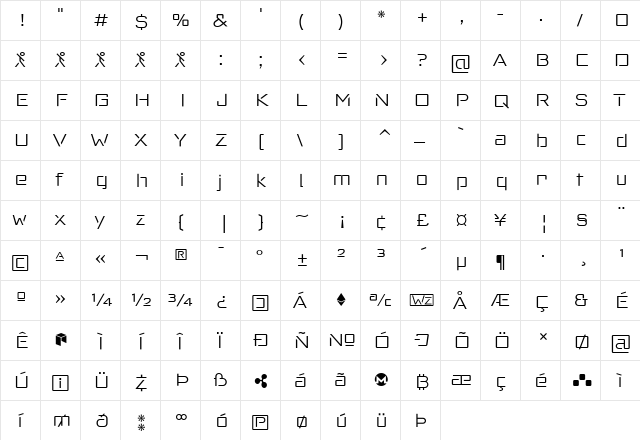
Red Thinker Light Regular
| Foundry | deFharo |
| Designer | Fernando Haro |
Design Context for Red Thinker Light Typeface
Red Thinker Light takes a measured approach to typography — its balanced proportions and neutral character make it a reliable workhorse for both digital and print work. Its slender proportions lend an understated elegance to any composition.